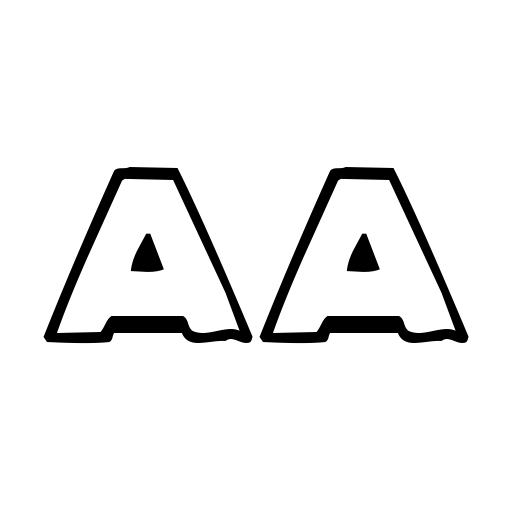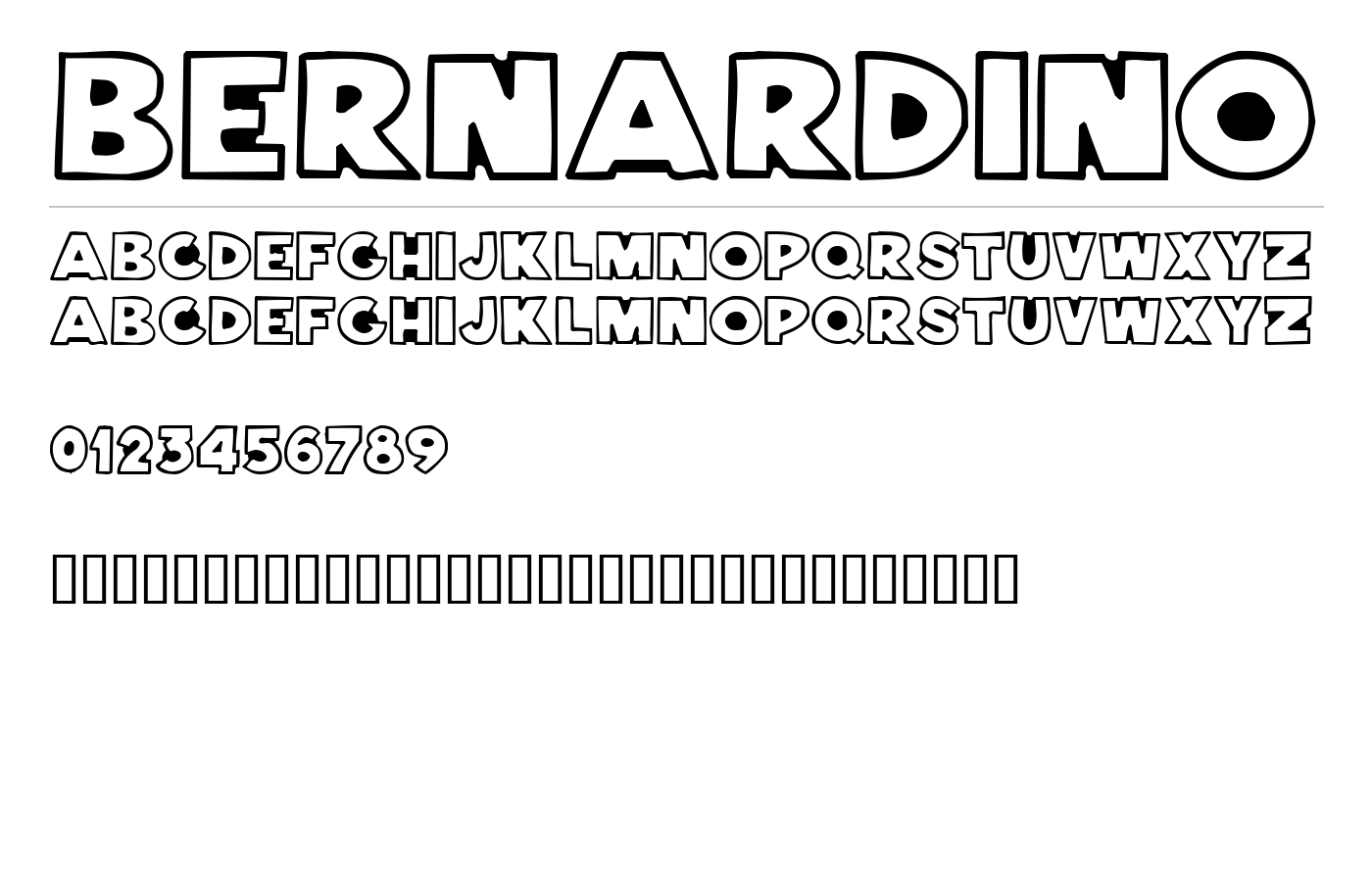
Bernardino is a bold, playful sans serif font with a hand-drawn, cartoon-like style that brings a fun and approachable vibe. Its chunky, rounded letterforms and uneven outlines create a lively, informal feel, making it perfect for children’s books, posters, logos, and any design aiming for a cheerful, friendly tone. This font works best in display settings where its quirky personality can shine and capture attention.
Bernardino Font